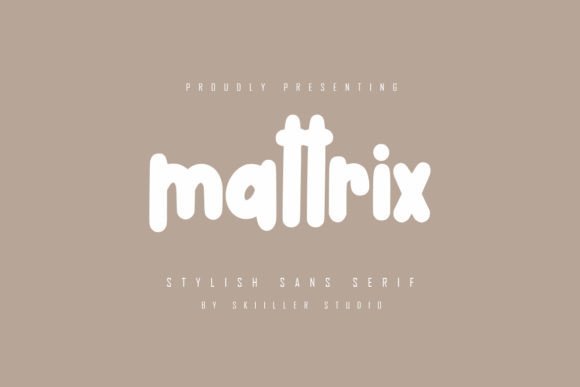
Indulge in the allure of Mattrix Font, a display font that commands attention and leaves an unforgettable impression. Crafted by the skilled hands of Skiiller Studio, Mattrix exudes an air of sophistication and modern aesthetics.
Dive into a world of endless possibilities, where creativity flourishes and your designs soar to new heights. Mattrix is the perfect companion for your business cards, injecting a touch of professionalism and uniqueness that sets you apart. Elevate your web designs with its sleek and eye-catching strokes, captivating your audience with every click.
But Mattrix is more than just a font—it's a statement. Its bold and distinctive character shines through, making it the ideal choice for your signature logo. Imagine your brand name adorned in the unmistakable lines of Mattrix, creating a visual identity that resonates with your audience and leaves a lasting impact.
With Mattrix Font, you're not just downloading a collection of glyphs—you're unlocking a realm of creative freedom and endless possibilities. Embrace the power of Mattrix today and let your designs speak volumes.